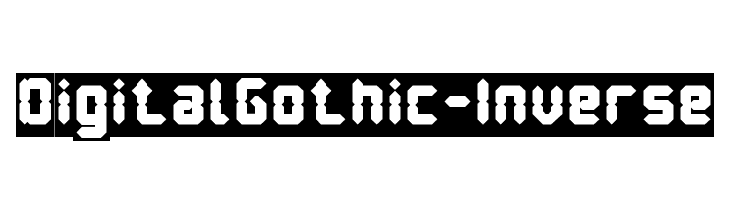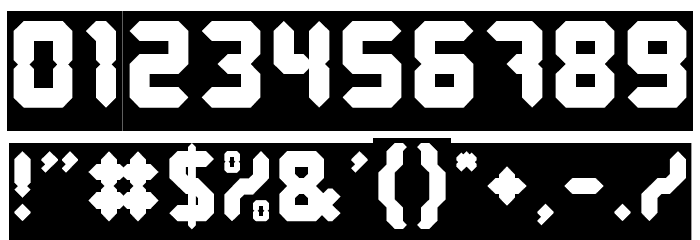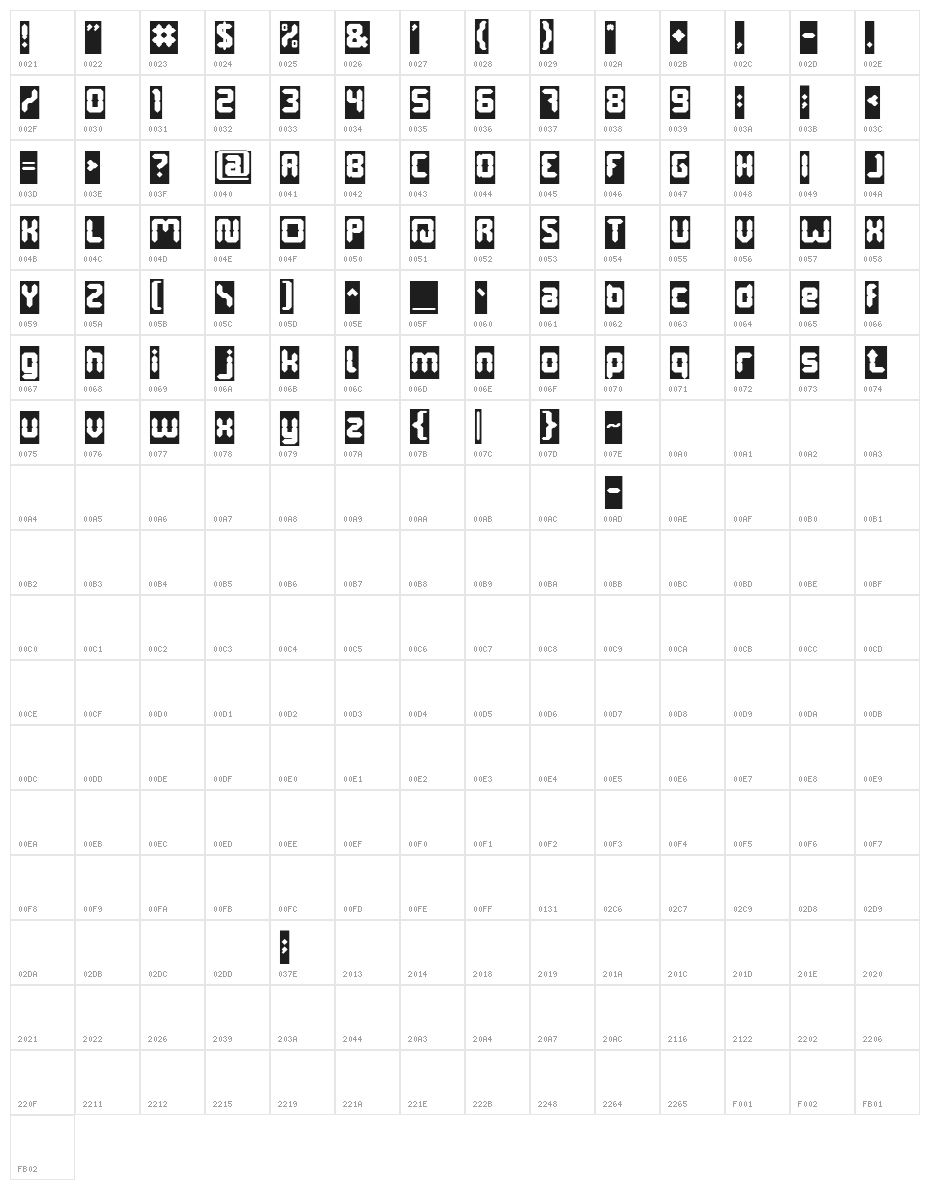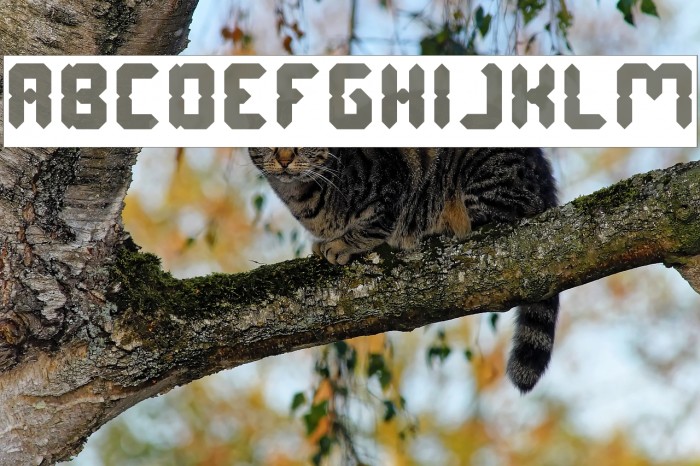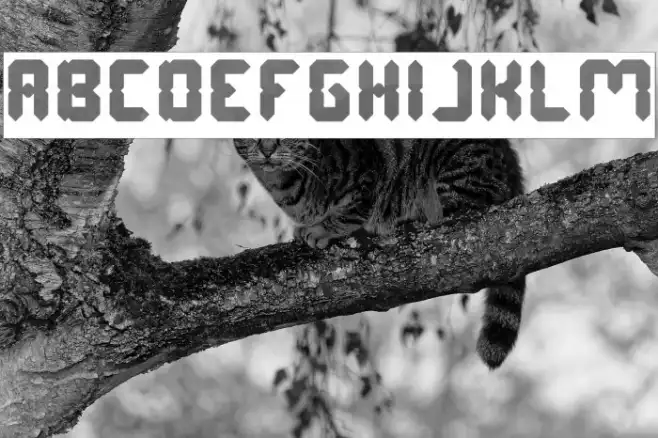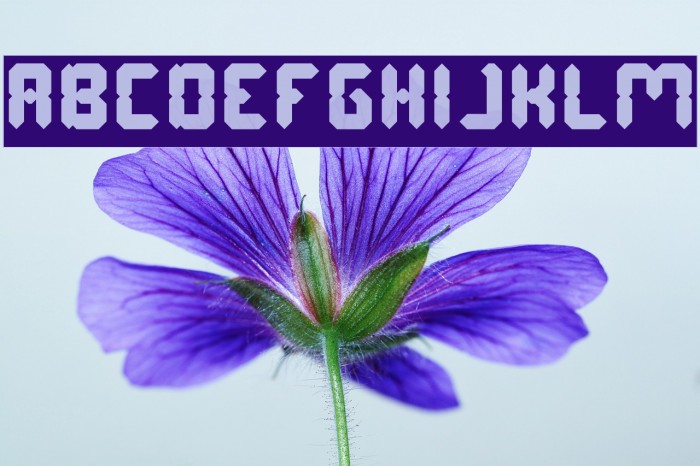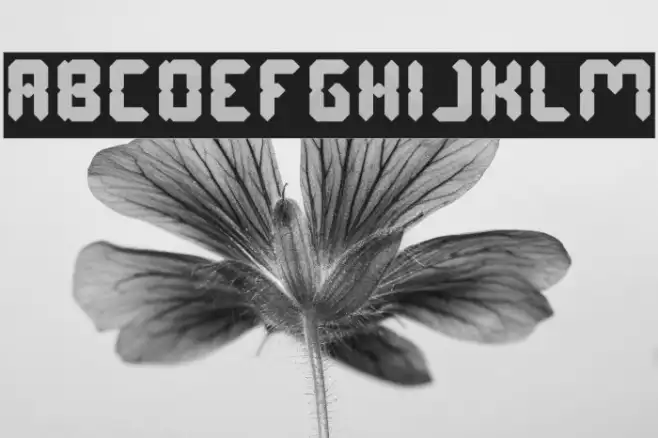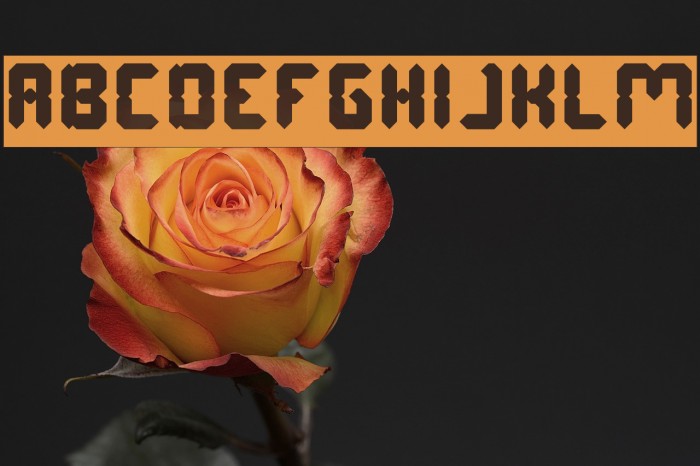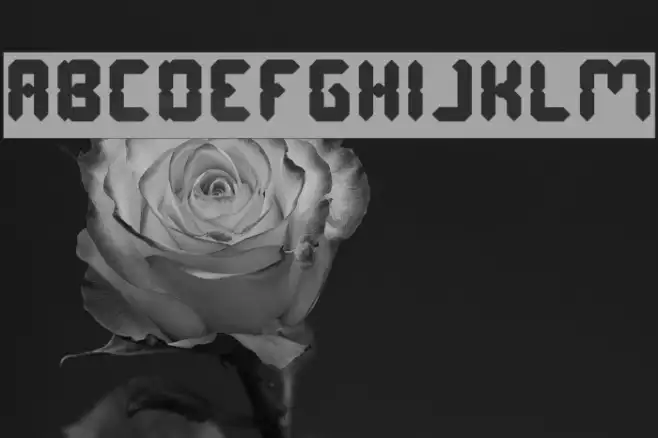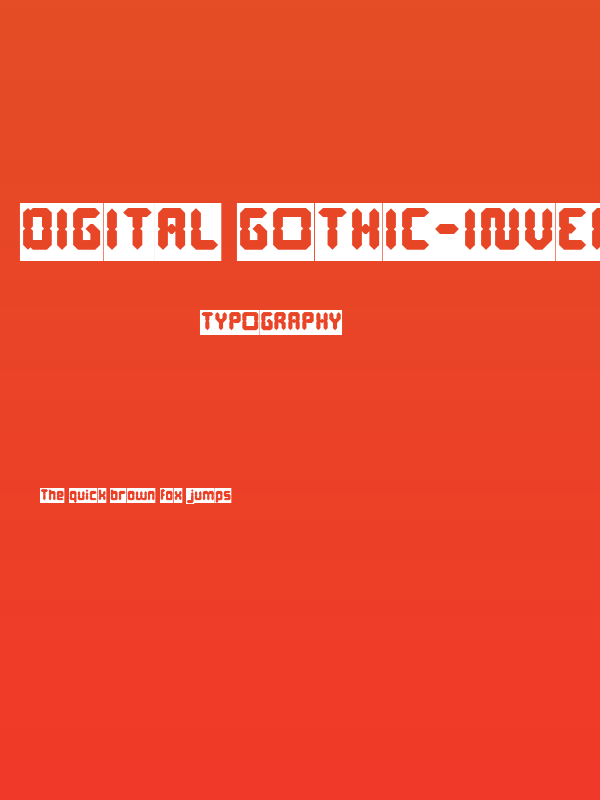
Digital Gothic-Inverse Font
Digital Gothic-Inverse Description
This font features a bold, geometric design with a digital and gothic influence. The characters are constructed with sharp angles and straight lines, creating a futuristic and edgy appearance. The uppercase and lowercase letters maintain a consistent style, with the uppercase being more pronounced. Numbers and special characters follow the same angular theme, ensuring uniformity across the font. The design is highly stylized, making it ideal for projects that require a modern and striking visual impact.